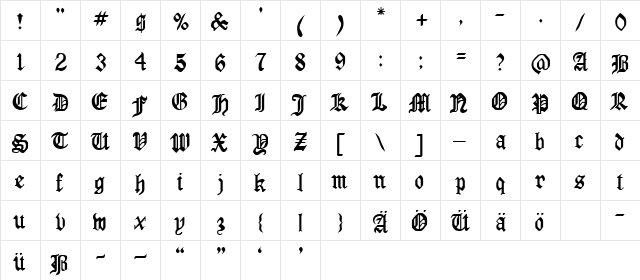
London.fog fog Font Preview
London.fog fog
Design Context for London.fog Typeface
London.fog is a composed and adaptable typeface that performs quietly and consistently across a wide range of design contexts.